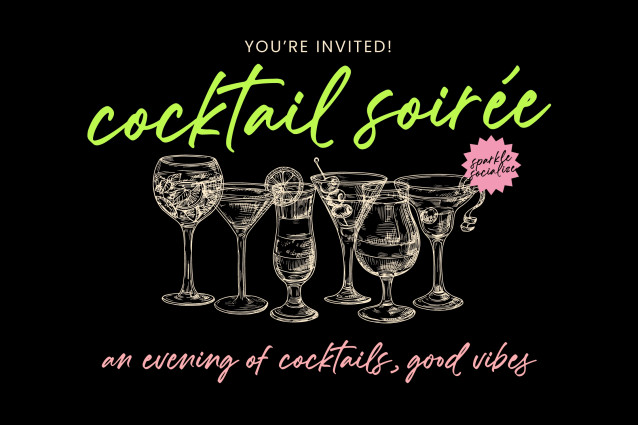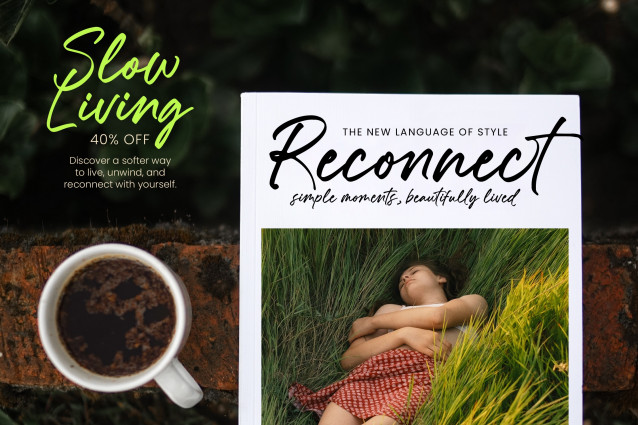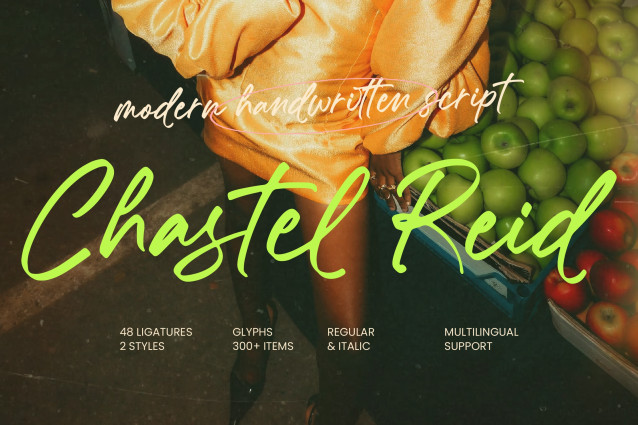
Chastel Reid – Modern Handwritten Script Font
Chastel Reid – Modern Handwritten Script is a masterfully crafted handwritten typeface designed to bring a personal, organic touch to high-impact visuals. Its fluid strokes and rhythmic flow capture an authentic aesthetic, making it an essential tool for designers seeking to balance modern style with a handcrafted feel. This font doesn’t just display text; it conveys a lifestyle of chic elegance and artistic confidence.
Unlock unparalleled design potential across a wide spectrum of premium applications. Chastel Reid – Modern Handwritten Script is the perfect choice for luxury branding, fashion editorials, and high-end packaging where a unique personality is paramount. Whether you are developing lifestyle logos, stylized social media content, or exclusive event invitations, this font provides the visual hierarchy and character needed to stand out in a crowded marketplace.